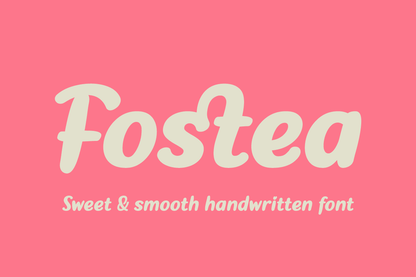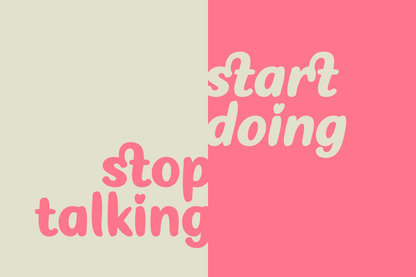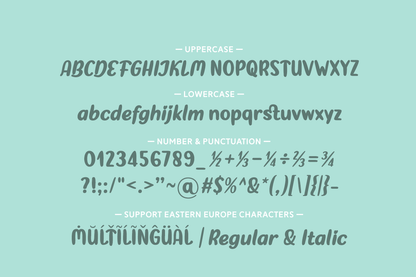
Fostea is a script font made with great lines and bold characters.
It combines the flair of hand-lettering with the strength of confident strokes, making it perfect for headlines, logos, apparel, and promotional materials. Fostea includes a variety of alternates and ligatures to help you create dynamic, custom looks with ease. Whether you're designing something elegant or edgy, Fostea brings a bold, expressive personality to your work. Add Fostea to your font library and make your next project stand out with style.